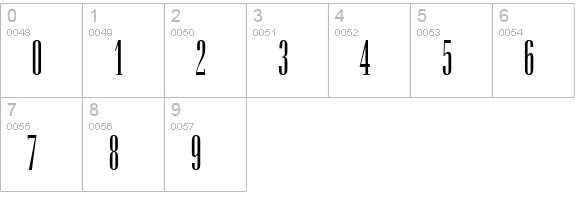
Charmeur Font Details
Charmeur font is a stunning and elegant typeface that exudes sophistication and charm. Its sleek lines and graceful curves make it perfect for adding a touch of luxury to any design project. Whether you're creating wedding invitations, branding materials, or social media graphics, Charmeur font will elevate your work to the next level. Best of all, Charmeur font is completely free to download at FontsMarket.com. This means you can access this exquisite font without having to spend a dime. Don't miss out on the opportunity to add this beautiful typeface to your collection today!